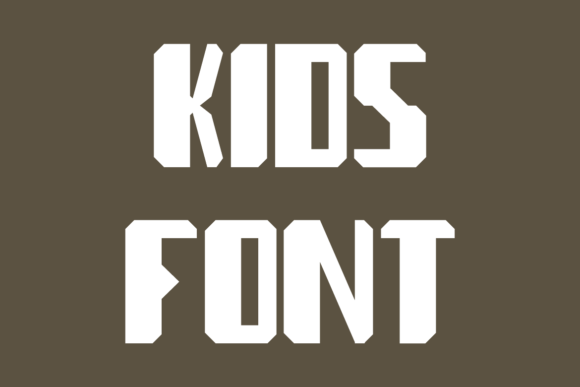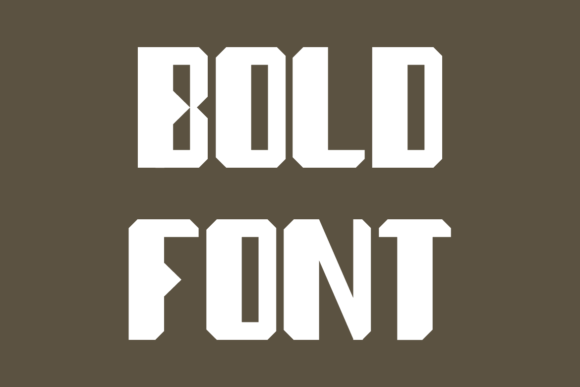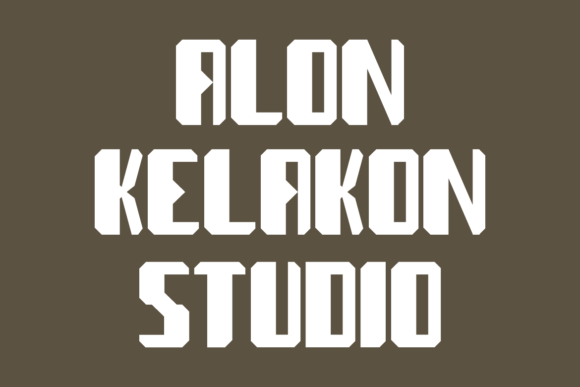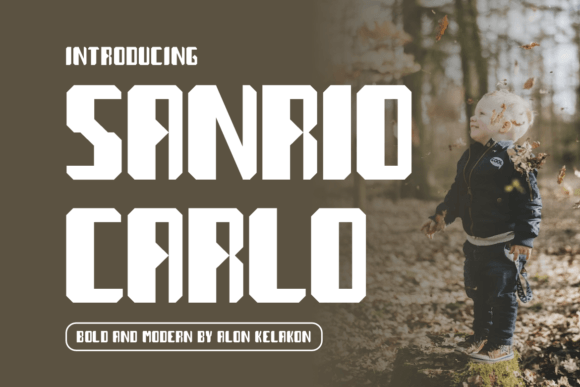
Introduction to Sanrio Carlo Font
Sanrio Carlo is a bold and assertive sans serif font.
Key Features of Sanrio Carlo Font
Why Choose Sanrio Carlo Font?